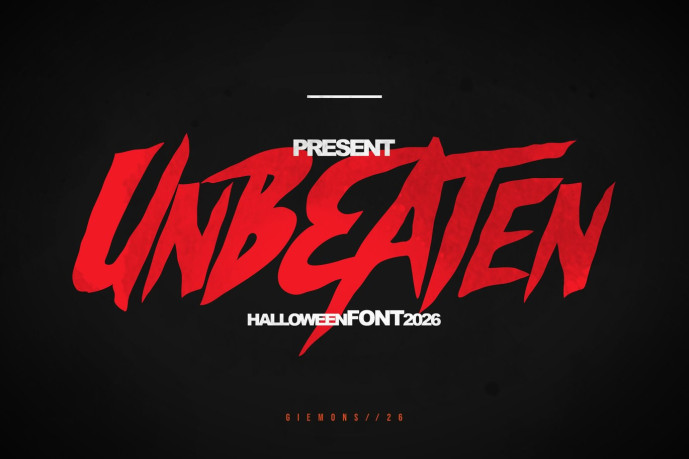
Unbeaten – Display font
This font is a handmade and expressive typeface, perfect for projects a halloween. It includes a full set of uppercase and lowercase letters, numerals, punctuation, symbols, and a wide range of accented characters to support multilingual use. Texture adds a unique visual impact, making it ideal for posters, album covers, branding, and other creative works that aim to stand out.
Uppercase and Lowercase (all caps lock)
numerals, symbols
Multilanguage character